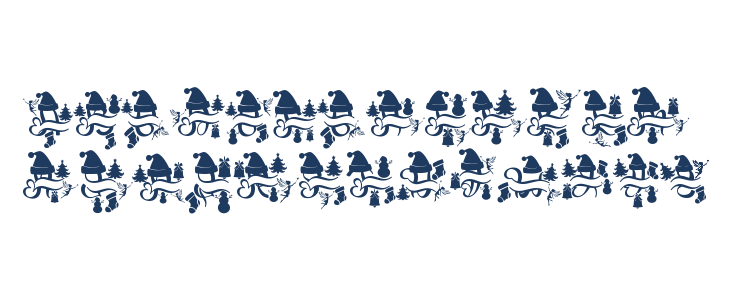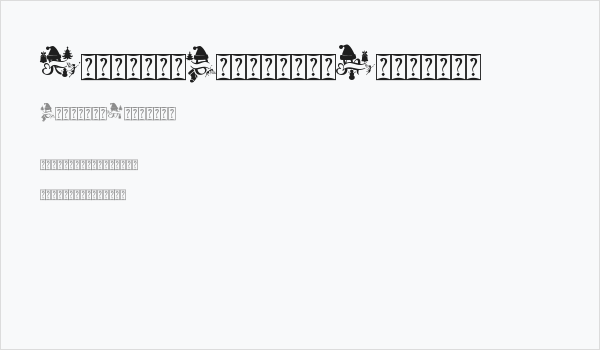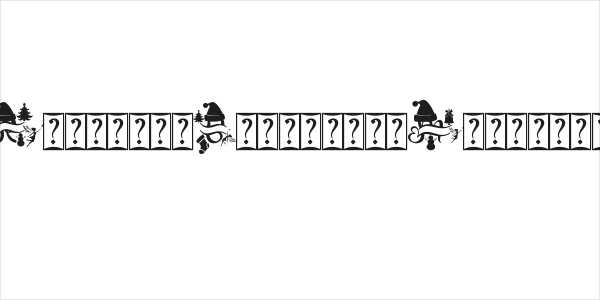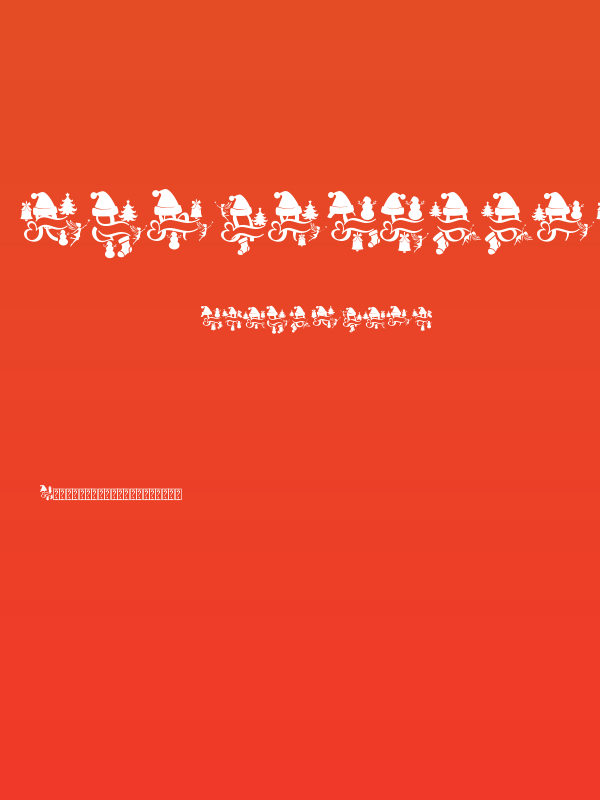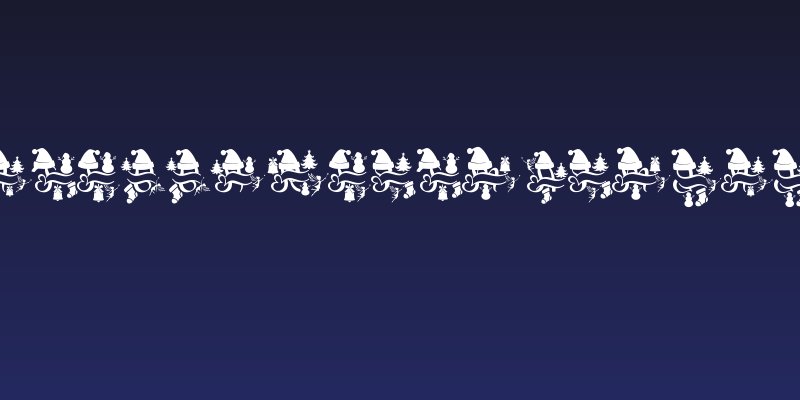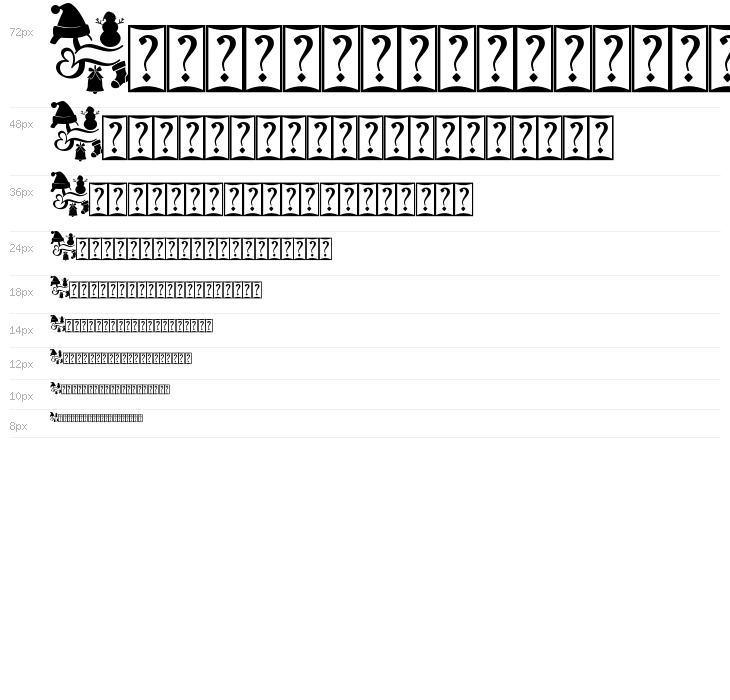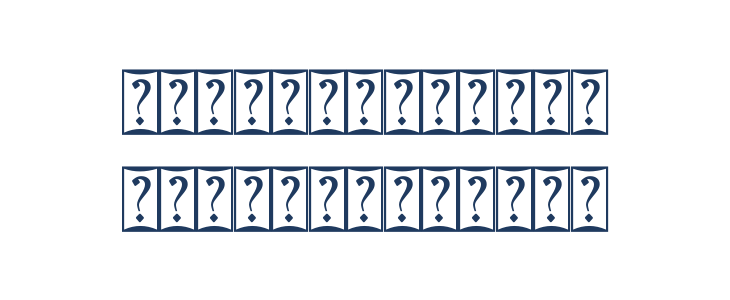
Romantic Christmas Monogram Font
Romantic Christmas Monogram Description
A decorative display font featuring ornate monogram-style letterforms embellished with Christmas-themed illustrations such as Santa hats, trees, snowmen, and presents. The characters are highly stylized with swirling flourishes and festive motifs integrated into each glyph.
| Overall Style | Decorative, Festive, Thematic |
| Use Case | Logos, Headlines, Invitations, Decorative elements |
| Proposed Projects | Holiday cards, festive invitations, seasonal branding, Christmas event posters, decorative monograms. |